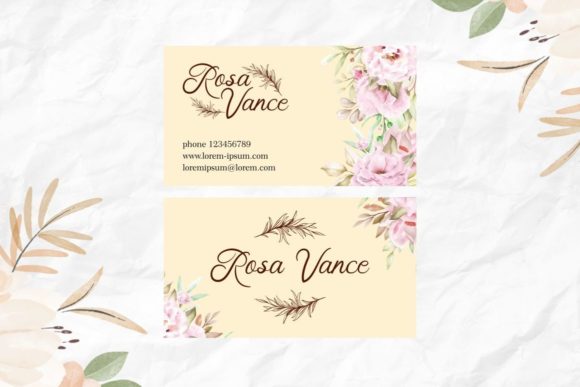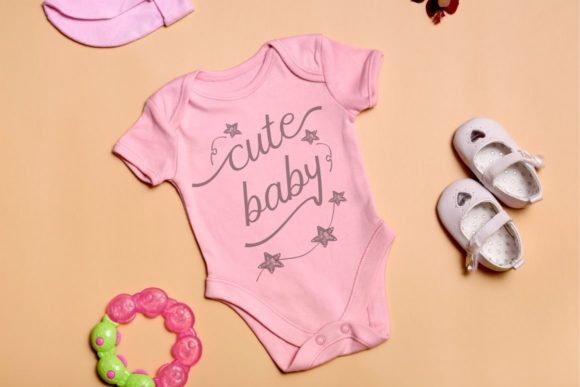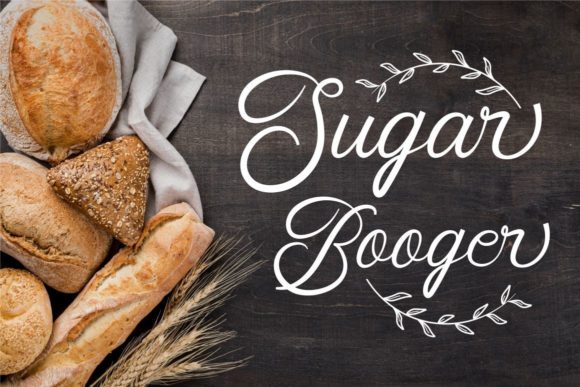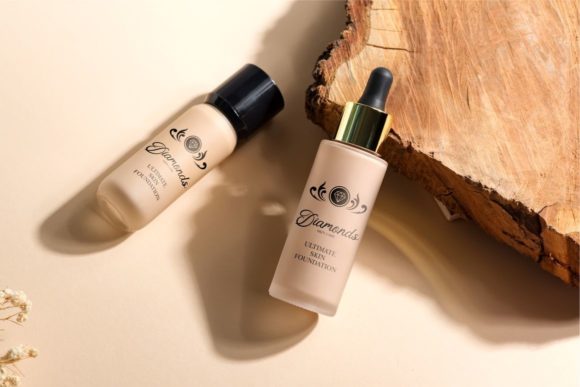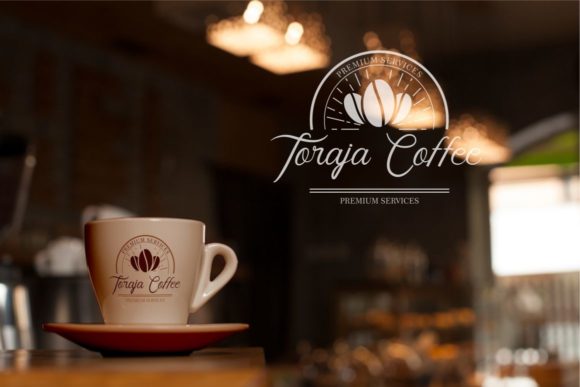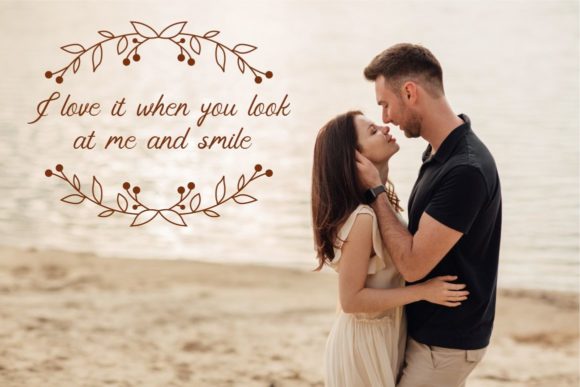
Introducing Faldith Font: The Epitome of Elegance and Charm
In the realm of typography, few fonts manage to strike a balance between charm and elegance as effortlessly as Faldith Font. This beautiful, handwritten font has captured the hearts of designers and crafters alike, and for good reason. Faldith feels equally charming and elegant, making it the perfect addition to a wide array of design projects, from wedding invitations and thank you cards to quotes, greeting cards, logos, business cards, and beyond.
The Versatility of Faldith Font
One of the standout qualities of Faldith Font is its incredible versatility. Whether you’re working on a formal event invitation or a casual greeting card, Faldith brings a level of sophistication and warmth that is hard to achieve with more traditional fonts. Its elegant strokes and charming ligatures make it an excellent choice for designs that require a personal touch.
Weddings and special events are occasions where elegance and charm are paramount. Faldith Font shines in these contexts, adding a romantic and whimsical touch to invitations, save-the-date cards, and thank you notes. Its flowing script and beautiful letterforms evoke a sense of nostalgia and romance, making it an ideal choice for couples looking to add a personal and unique element to their wedding stationery.
Enhancing Quotes and Greeting Cards
For designers and crafters who specialize in creating inspirational content or greeting cards, Faldith Font offers a fresh and stylish alternative to more traditional fonts. Its elegant and yet approachable feel makes it perfect for quotes, sayings, and messages of encouragement, allowing the words to take center stage while still providing a visually appealing backdrop.
Logos and Business Cards: Making a Statement
In the world of branding and business, standing out is crucial. Faldith Font can help businesses make a memorable impression with its unique and stylish script. For logos, business cards, and other marketing materials, Faldith offers a distinctive look that conveys elegance, professionalism, and a touch of personality. This can be particularly beneficial for businesses in the creative industries, luxury goods, or any sector where conveying a sense of style and sophistication is key.
Why Designers and Crafters Love Faldith Font
Designers and crafters are drawn to Faldith Font for several reasons:
- Ease of Use: Faldith is incredibly easy to read and work with, making it a joy for both designers and their clients.
- Flexibility: It can be used in a variety of design projects, from digital content to print materials.
- Uniqueness: Faldith offers a distinctive look that sets it apart from more commonly used fonts.
- Emotional Connection: It has a way of conveying warmth and personality, making any design feel more personal and engaging.
Faldith Font is a gem in the world of typography, offering a perfect blend of charm and elegance. Its versatility, beauty, and emotional resonance make it an excellent choice for designers and crafters looking to add a personal and sophisticated touch to their projects. Whether you’re working on wedding invitations, quotes, logos, or business cards, Faldith Font is sure to elevate your designs and leave a lasting impression.